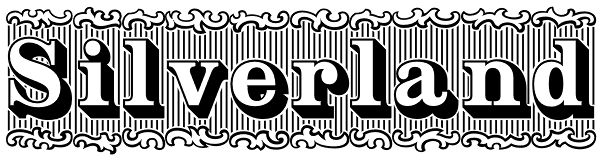
Silverland
Silverland is a revival of an old type font from the Bruce Type Foundry of New York, the original font from 1874 included uppercase only plus 22 end caps. This 21st. century version has been expanded to include many more decorative end caps plus new...